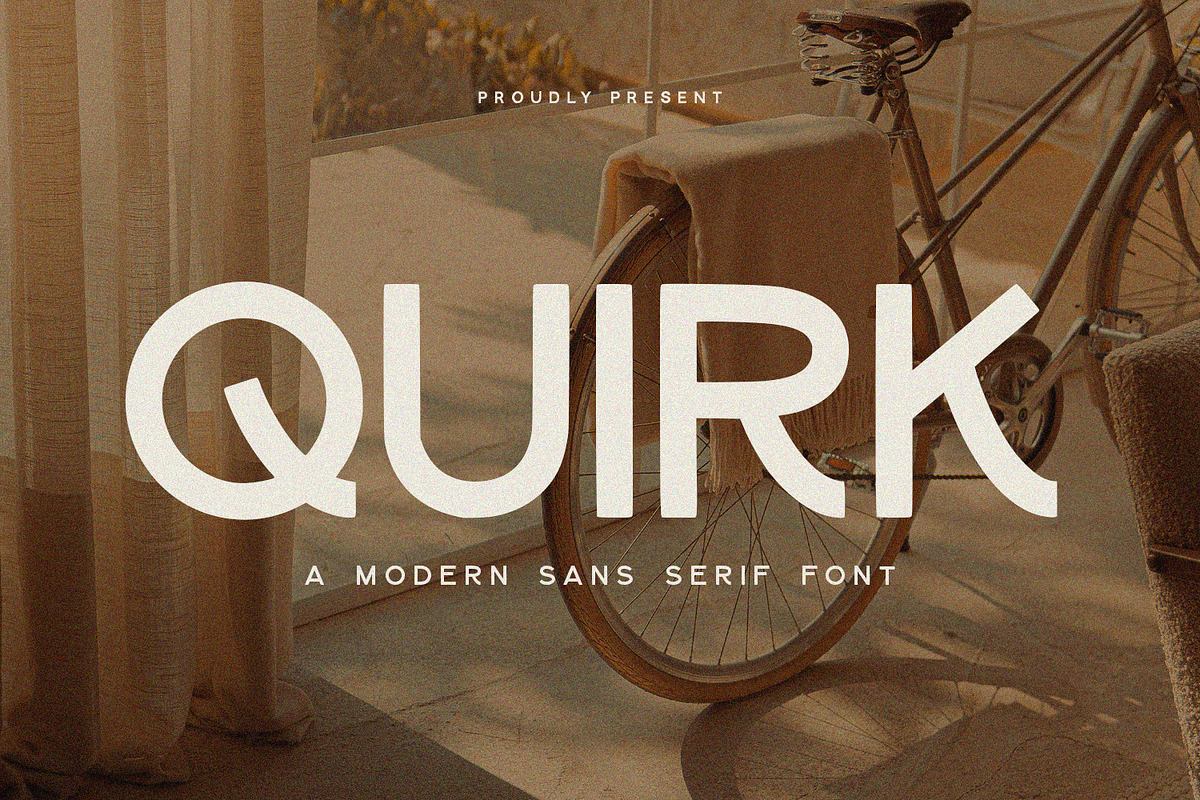
Quirk – Sans Serif Font Free Download is a fun and modern typeface with a playful personality. Featuring clean lines and subtle irregularities, Quirk is perfect for branding, children’s designs, product packaging, posters, and social media graphics that need a lighthearted yet professional touch.
This sans serif font stands out with its quirky charm while remaining highly legible and versatile. Whether you’re designing for a creative brand, a cheerful campaign, or a casual website, Quirk brings a unique voice to your typography.